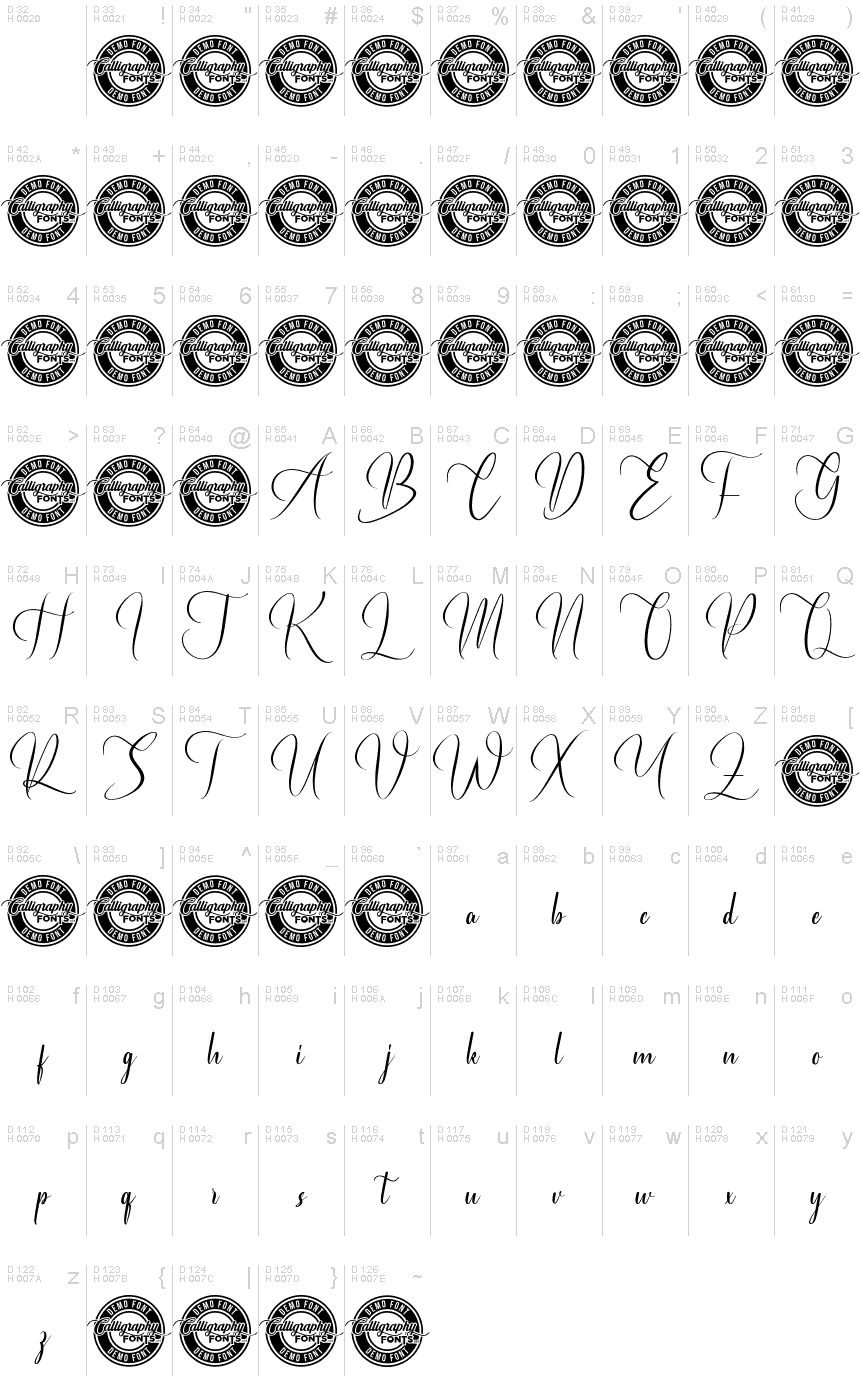
Early Winter Demo
Early Winter is a light, narrow calligraphy script font designed by Widiyanti & Suci Anita. It is perfect for adding a handwritten touch to invitations, cards, logos, and other creative projects.